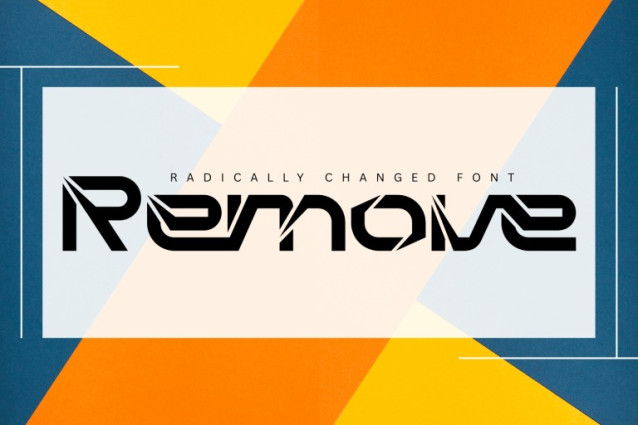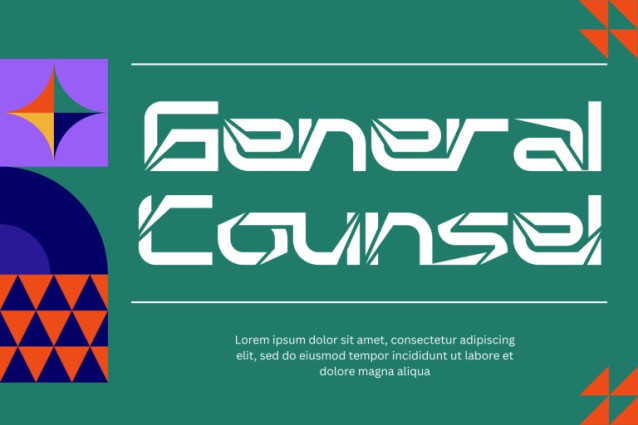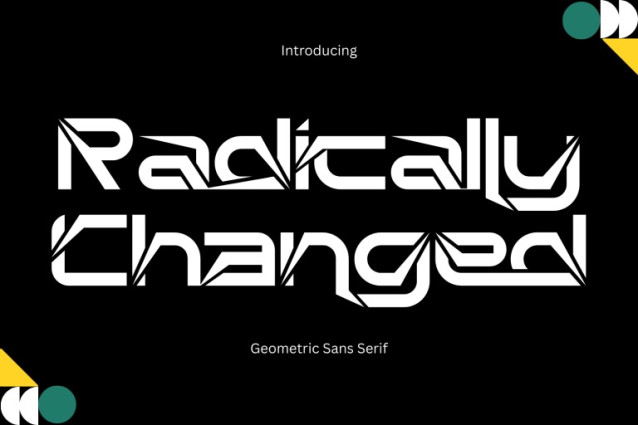
Radically Changed Font
Radically Changed – Futuristic Font – Futuristic Geometric Sans-Serif Display Font, a bold futuristic sans-serif display font inspired by sharp geometry, digital aesthetics, and sci-fi design language. The letterforms feature angular cuts, dynamic diagonals, and distinctive split strokes that create a strong sense of motion, technology, and innovation. Each character is carefully constructed with precise edges and mechanical balance, giving the font a powerful and modern presence. Radically Changed is perfect for technology branding, sci-fi posters, gaming titles, cyberpunk visuals, esports logos, UI headers, futuristic packaging, and experimental editorial design. Its aggressive yet clean structure makes it ideal for headlines and display use where impact and originality are essential.
Uppercase & Lowercase Letters
Around 100 Special Ligatures & Alternates
Accented Characters for multilingual support
🔤About 100 ligatures combined with Stylistic Alternates Font: